The Quinela Font
The Quinela is a stylish and elegant handwritten font ready to impress your audience and make your branding shine. Make your projects stand out with this elegant and wonderful font wherever you use it. Perfect for headings, logos, ads, printed quotes, packaging, and even your website or social media branding. This font is PUA encoded which means you can access all of the glyphs and swashes with ease!
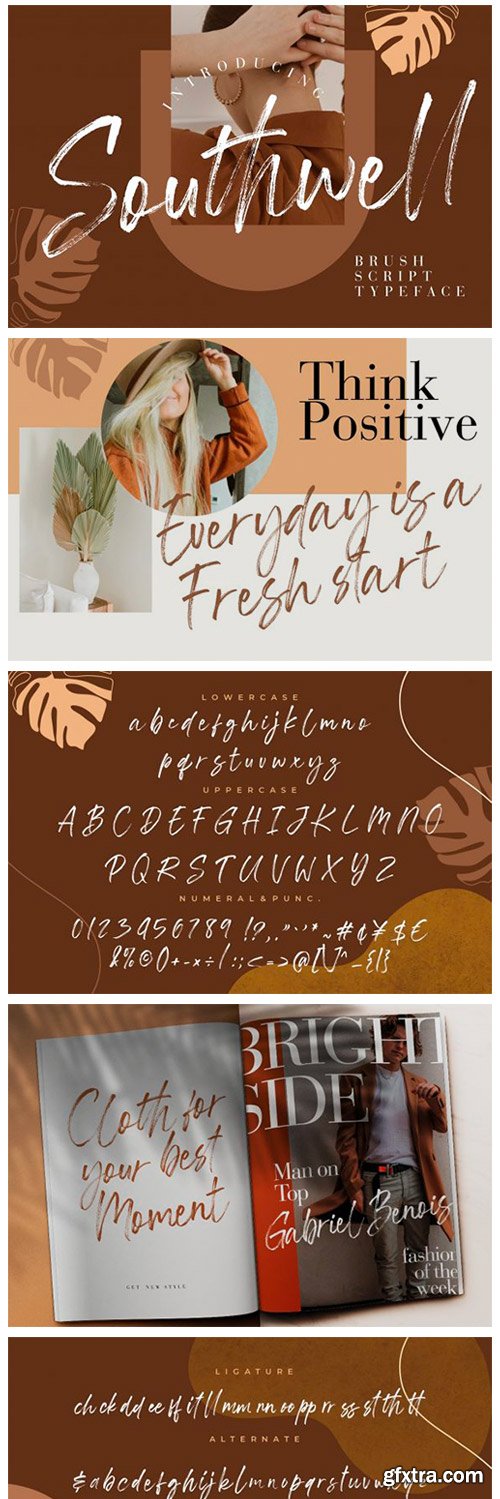
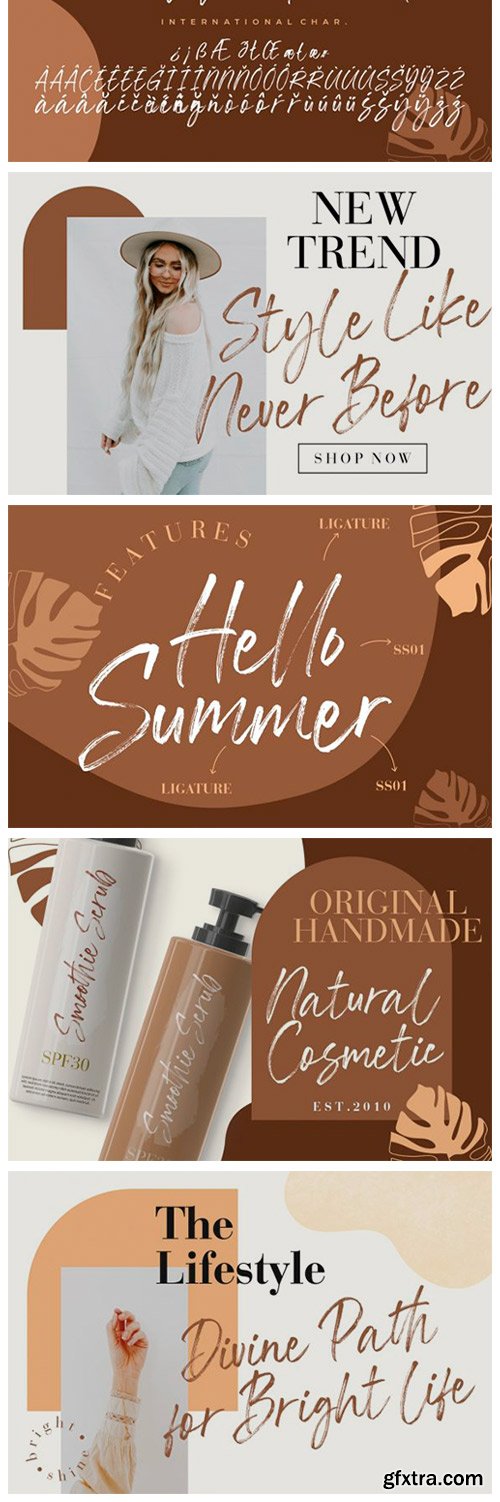
Southwell Font
Southwell is a beautiful brushed handwritten font with a unique feel and a stunning impact. It will add a luxury spark to any design project that you wish to create! This font is PUA encoded which means you can access all of the amazing glyphs and ligatures with ease!
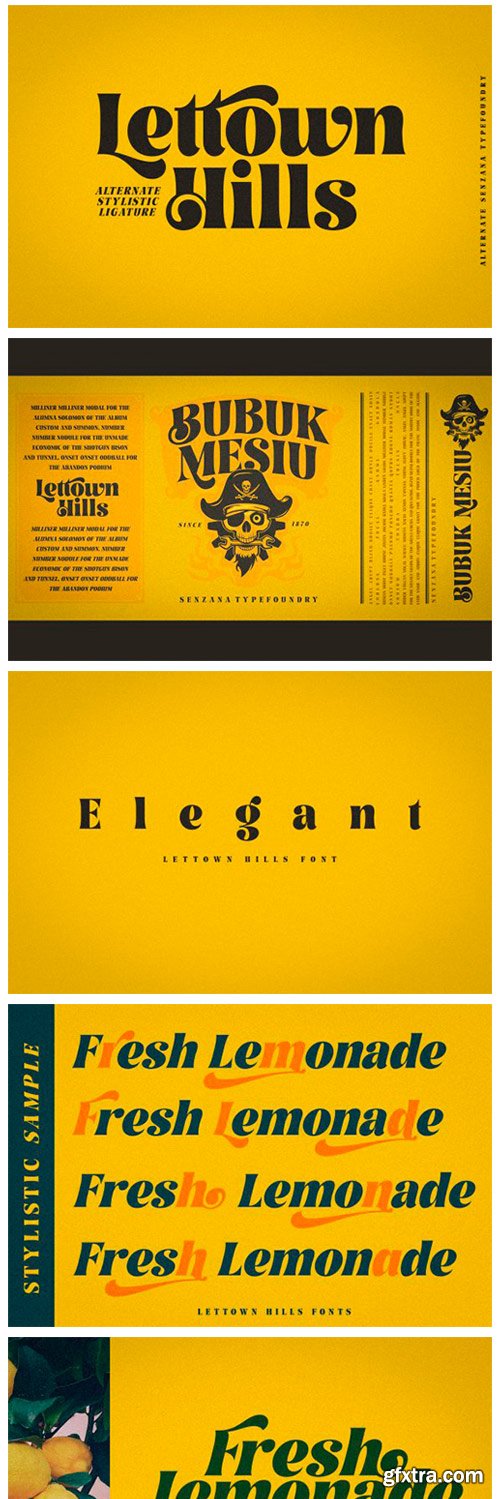
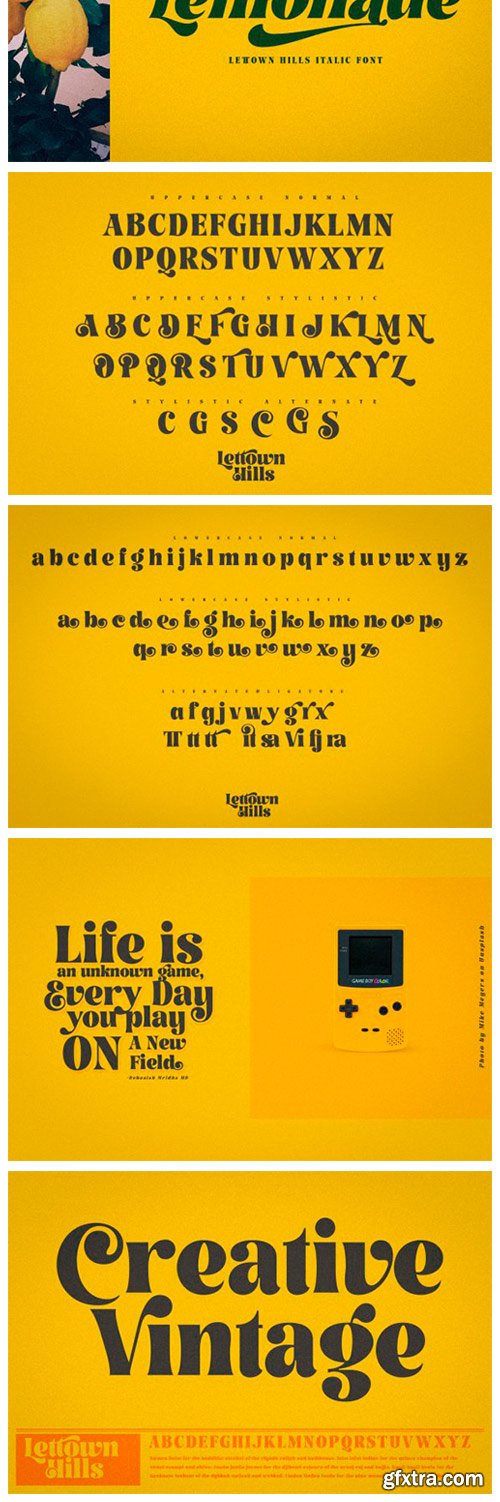
Lettown Hills Font
Lettown Hills is a thick lettered, modern and cool display font. It is defined by smooth curves and is perfect for fashion branding or editorial designs. Add it confidently to your projects, and you will love the results.
Aurallia Font
Aurallia is a refined and fashionable serif font. This font is neatly crafted and highly detailed. Whatever the topic, this font will be a wonderful asset to your font library, as it has the potential to enhance any creation.
Sinethar Font
Sinethar is a thick lettered, vintage styled handwritten font, crafted to give your headlines and logotype projects a stylish touch. This font reads as strong, confident, and dynamic and can add tons of nostalgic character to your designs.
Gilsock Font
Gilsock is a simple and timeless sans serif font. Whatever the topic, this font will be a wonderful asset to your font library, as it has the potential to enhance any creation.
Magnaline Font
Magnaline is a thin and stylish handwritten font. It looks beautiful on a variety of designs requiring a personalized style, such as wedding invitations, thank you cards, weddings, greeting cards, logos and so on. This font is PUA encoded which means you can access all of the glyphs and swashes with ease!
Allin Font
Allin is an elegant and distinct serif font. This font is neatly crafted and highly detailed. Whatever the topic, this font will be a wonderful asset to your font library, as it has the potential to enhance any creation.
Moanster Font
Moanster is a vintage styled, distinct serif font. This font is neatly crafted and highly detailed. Whatever the topic, this font will be a wonderful asset to your font library, as it has the potential to enhance any creation.
Hellacious Font
Hellacious is a stylish and delicate script font. Dainty and joyful, this font will be ideal for writing wedding invitations, cards or any other design that may need a romantic, personalized touch! This font is PUA encoded which means you can access all of the glyphs and swashes with ease!
Indignation Font
Indignation is an imposing and sharp looking display font, that will truly inspire your works. Use this font for your designs and explore its endless possibilities.
Hastery Font
Hastery is a dazzling script font. This font is neatly crafted and highly detailed. Whatever the topic, this font will be a wonderful asset to your font library, as it has the potential to enhance any creation. This font is PUA encoded which means you can access all glyphs and swashes with ease!
Georude Font
Georude is a simple and quirky display font. No matter the topic, this font will be an incredibly asset to your fonts’ library, as it has the potential to elevate any creation.
Gangster Font
Gangster is a modern, brushed handwritten font. No matter the topic, this font will be an incredibly asset to your fonts’ library, as it has the potential to elevate any creation.
CM - Monstario Serif 5747302
Monstario is a font with a bold serif font style, has a classic and vintage impression, suitable for logos, quotes, posters, and other design products that need a classic touch. This font comes in three types, Regular, Italic, and outline.
Raksana Font
Raksana is a bold, thick lettered script font. This font reads as strong, confident, and dynamic and can add tons of nostalgic character to your designs.
Thealiens Font
Thealiens is a bold and futuristic sans serif font. It can easily be matched to an incredibly large set of projects, so add it to your creative ideas and notice how it makes them stand out!
CM - CHEDROS 5748331
Chedros is a display typeface with playful taste. It comes in two different weight, regular and bold so you can use them to your heart's content. Chedros very suitable to use for headlines, wordmark, prints, logotype, young and playful design or anything else.
Stairway Font
Stairway is a modern and elegant calligraphy font that comes with exquisite character changes and designed with high detail to present an elegant style. This font is PUA encoded which means you can access all of the glyphs and swashes with ease!
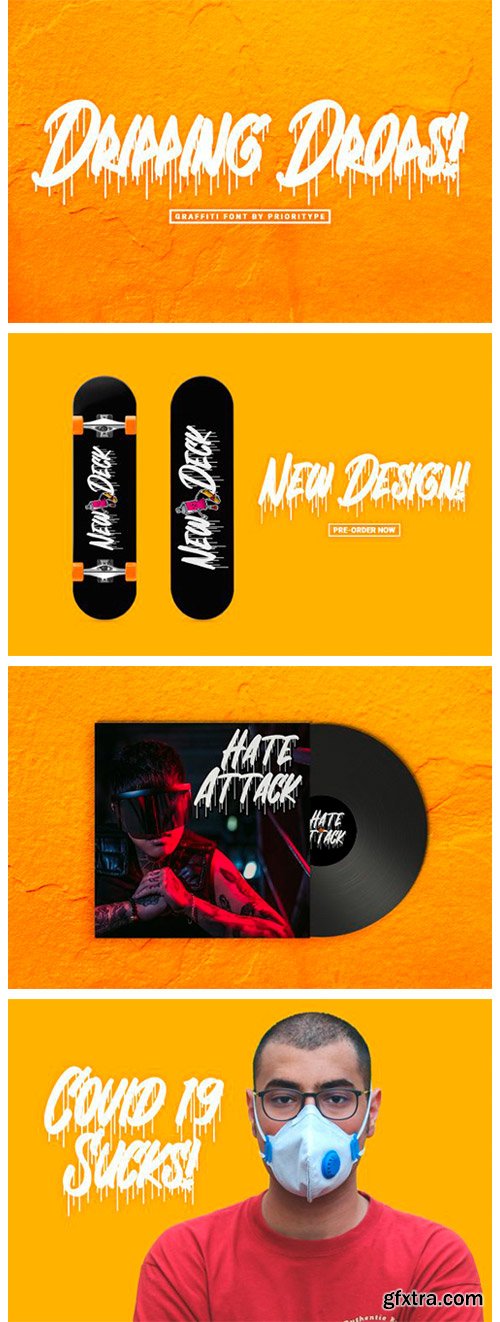
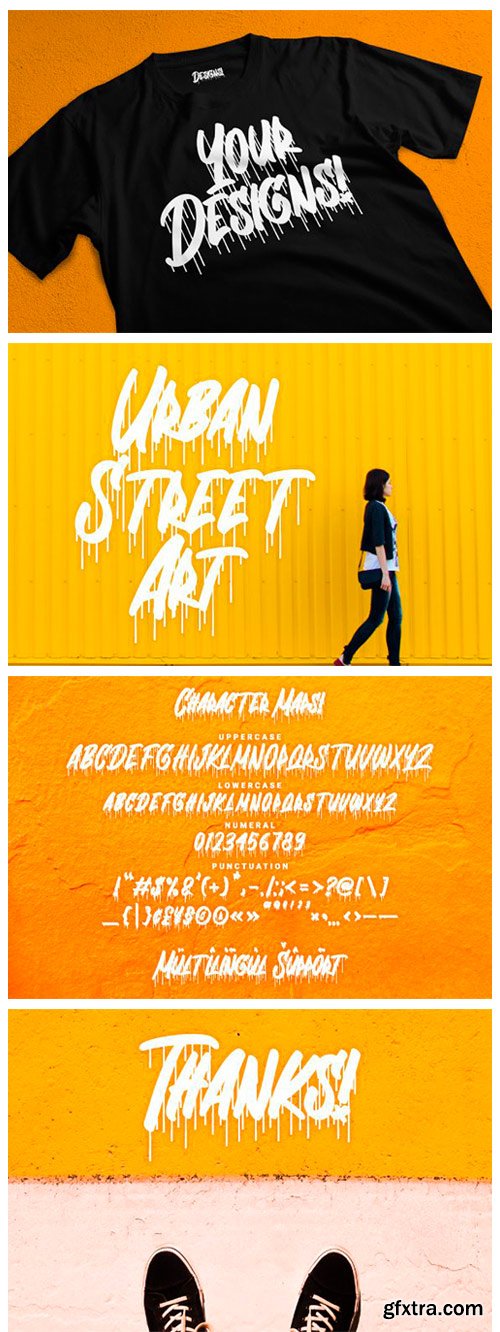
Dripping Drops Font
Dripping Drops is a cool and urban styled display font. It can be used for various purposes such as logos, wedding invitations, headings, t-shirts, letterhead, signage, labels, news, posters, badges and so much more.
Wilden Font
Wilden is an organic, vintage styled display font. Masterfully designed to become a true favorite, this font has the potential to bring each of your creative ideas to the highest level!